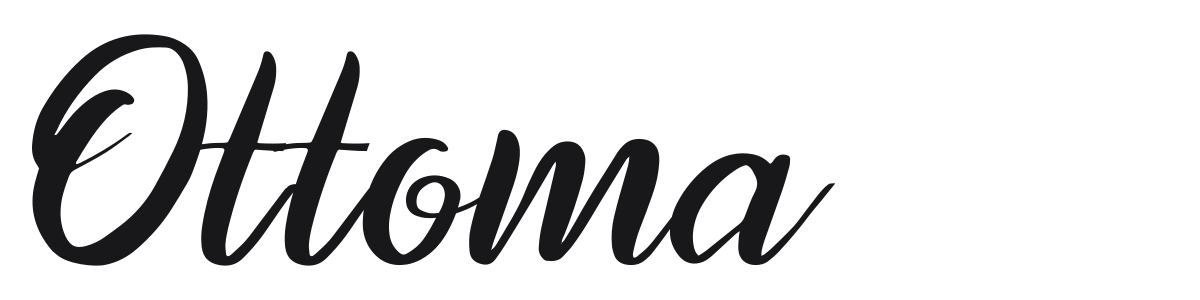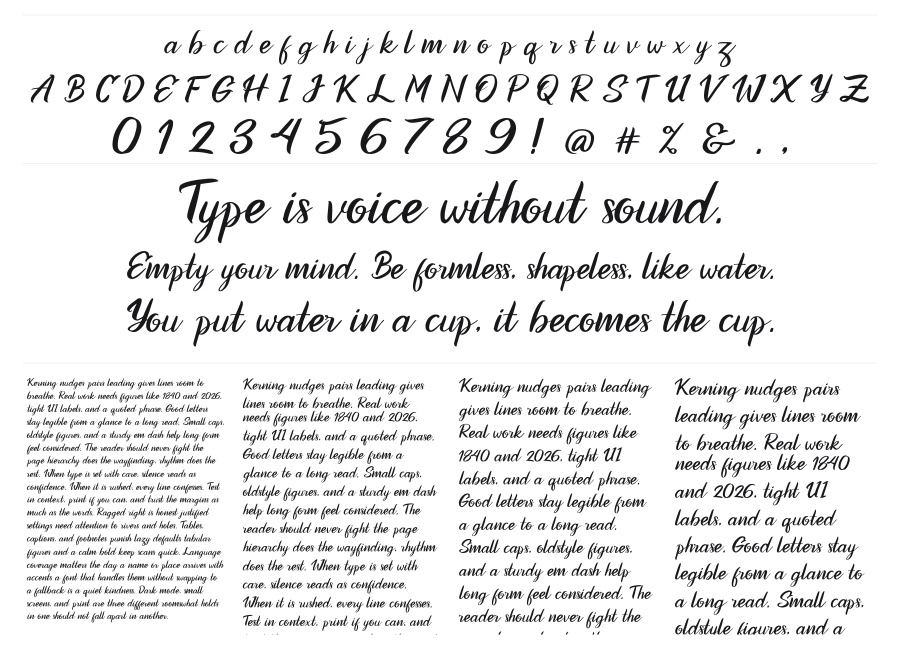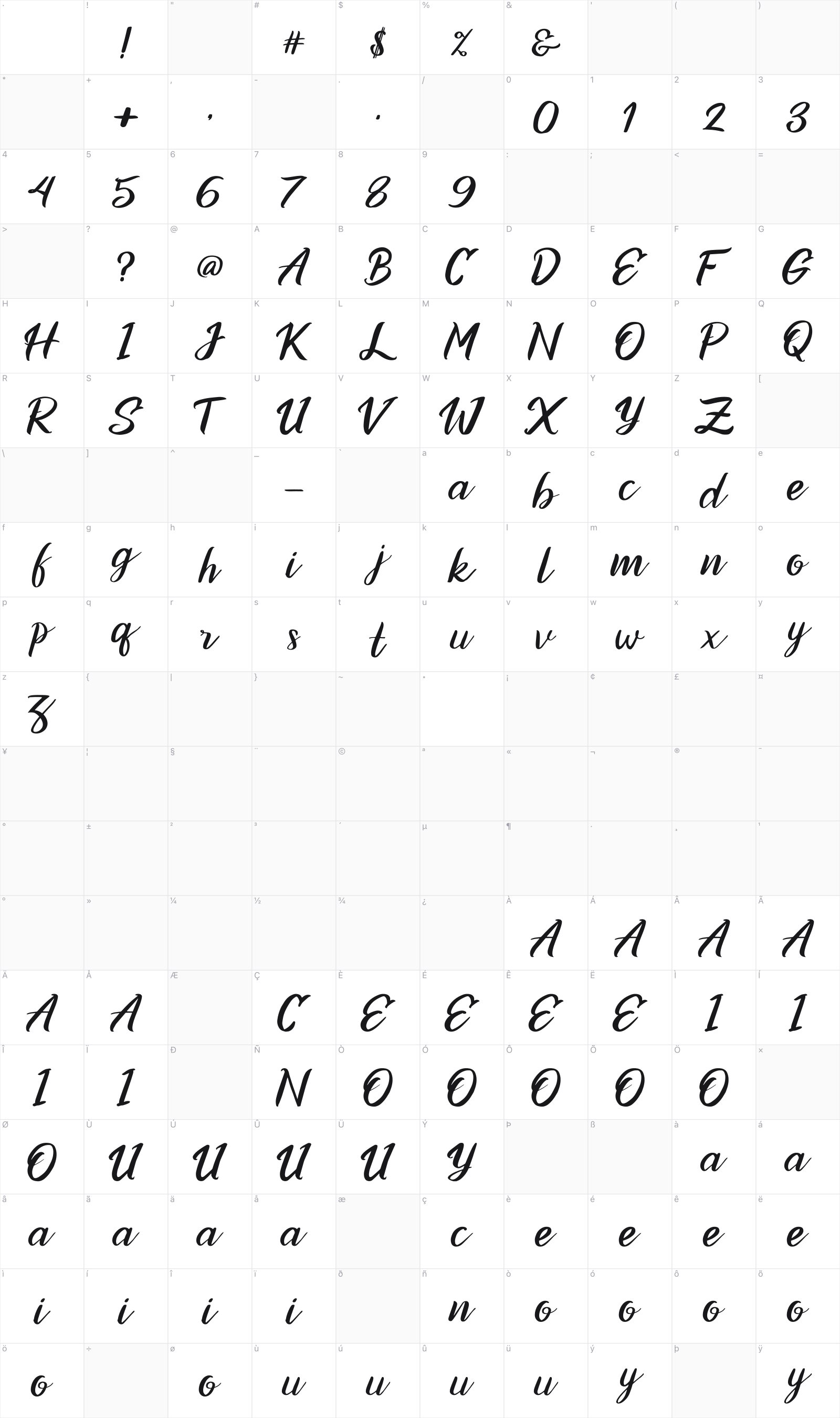
Ottoma
Ottoma is a casual calligraphic script with sweeping strokes, generous loops, and decorative swashes that give it a confident handwritten energy. The high contrast between thick downstrokes and thin hairlines keeps it feeling refined despite its loose, natural rhythm. Strong at large sizes for wedding stationery, branding, and packaging.